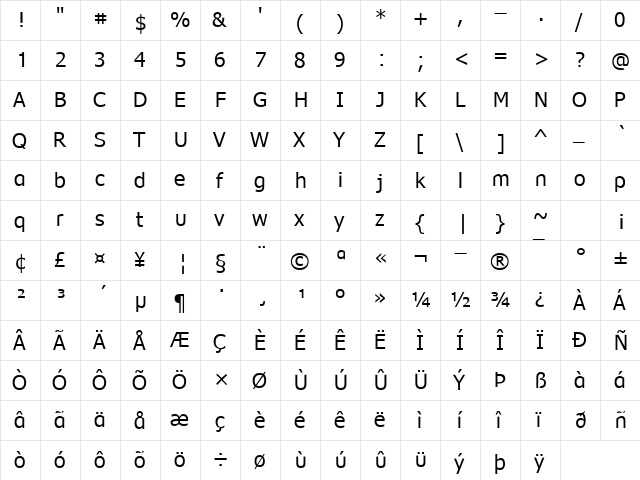
Adam Regular
Design Context for Adam Typeface
Adam is a composed and adaptable typeface that performs quietly and consistently across a wide range of design contexts.